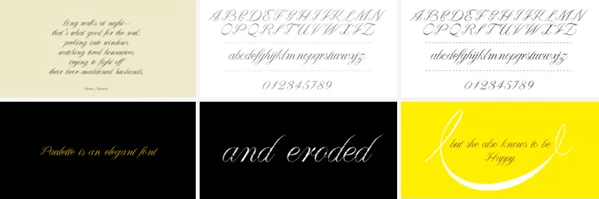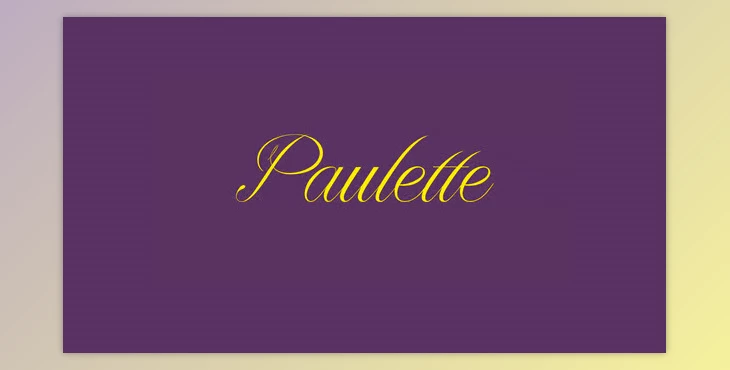
The Paulette Font Family is a one-of-a-kind script typeface that's sure to add character to your designs. The capital letters are uniquely designed with various characters, A, F, O, H, Q, B, C, P, and G, featuring smile-like embellishments that make Paulette a quirky font. The lowercase letters are based on the classic Edwardian script, giving it an elegant vintage touch. This makes it a versatile font for all typographic sizes, big, medium, and small.
This font also features a glyph set of 342 international characters and six new ligatures, making Paulette adaptable across multiple languages. This applies to the two styles in the Paulette family, regular and eroded, which both offer a classy look that adds a sophisticated touch to any project. The Paulette Font Family is an elegant and practical choice that will add unique value to your work as a creative professional.